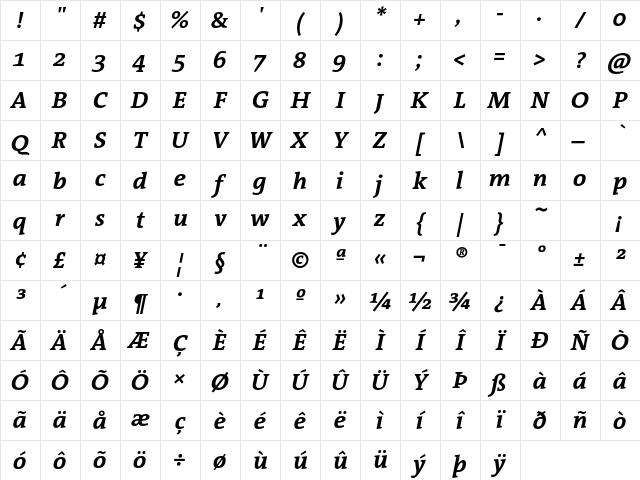
TheAntiquaSun Bold Italic
Design Context for TheAntiquaSun
TheAntiquaSun is a composed and adaptable typeface that performs quietly and consistently across a wide range of design contexts. The slanted form adds forward momentum and visual energy. Its bold stroke weight gives it real presence on the page.
Pro Tip: Use TheAntiquaSun for emphasis, pull quotes, and subheadings where its slanted energy can add rhythm to the layout.